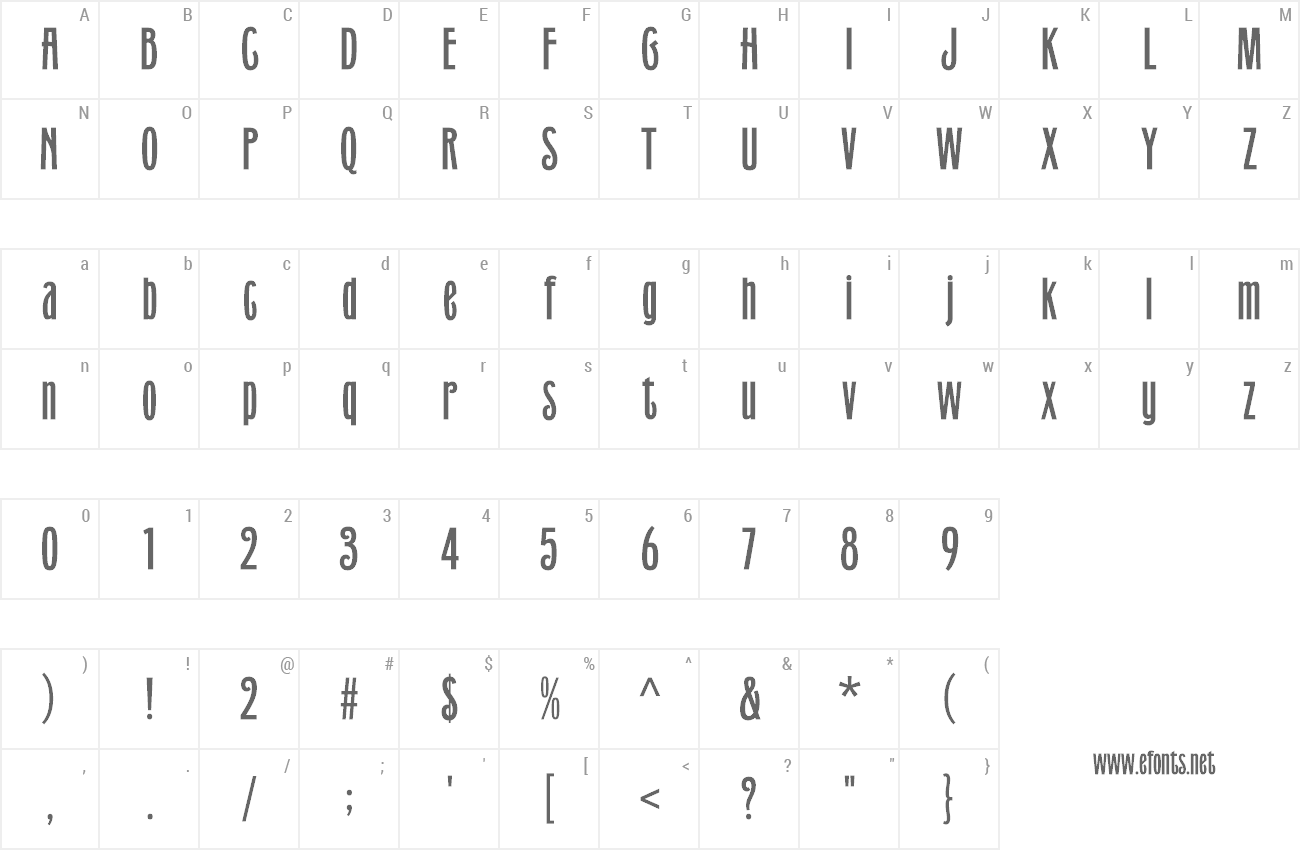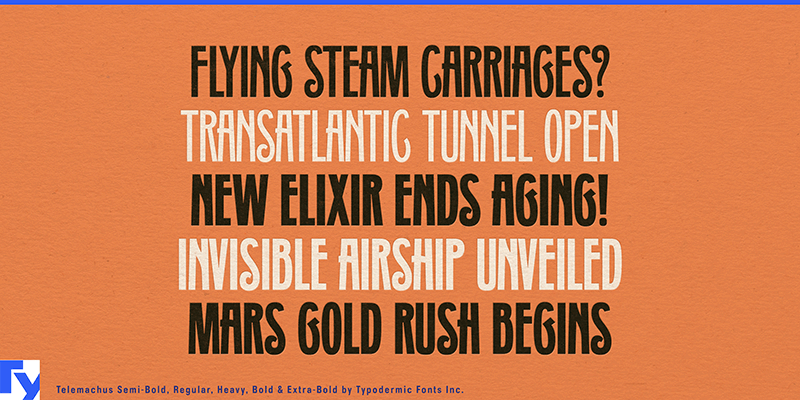
Preview and download Telemachus Font. Created by Typodermic Fonts in Basic Sans serif styles with 100% Free license.
Telemachus is an ultra-compressed sans serif inspired by 19th-century metal type, reworked for contemporary design. Its towering x-height and narrow proportions deliver strong impact in minimal horizontal space, while rounded terminals soften the vertical tension. Ideal for headlines, posters, packaging, and other space-tight layouts, Telemachus brings vintage character into a clean modern form. With broad Latin language support, it offers a confident, distinctive voice for display typography. These fonts include a license that allows free commercial use: sometimes referred to as a desktop license. This allows you to install the fonts on a computer and use them to create posters, web graphics, game graphics, t-shirts, videos, signs, logos and more. Read the license agreement for details. If you'd like to embed this font in an app, on the web or anything that's not covered by the desktop license agreement, visit the link below. You'll find distributors who offer different types of licenses, or you can contact me for help. https://typodermicfonts.com/telemachus/ These free fonts are part of a larger font family. Check out the rest of the family through the link above. |